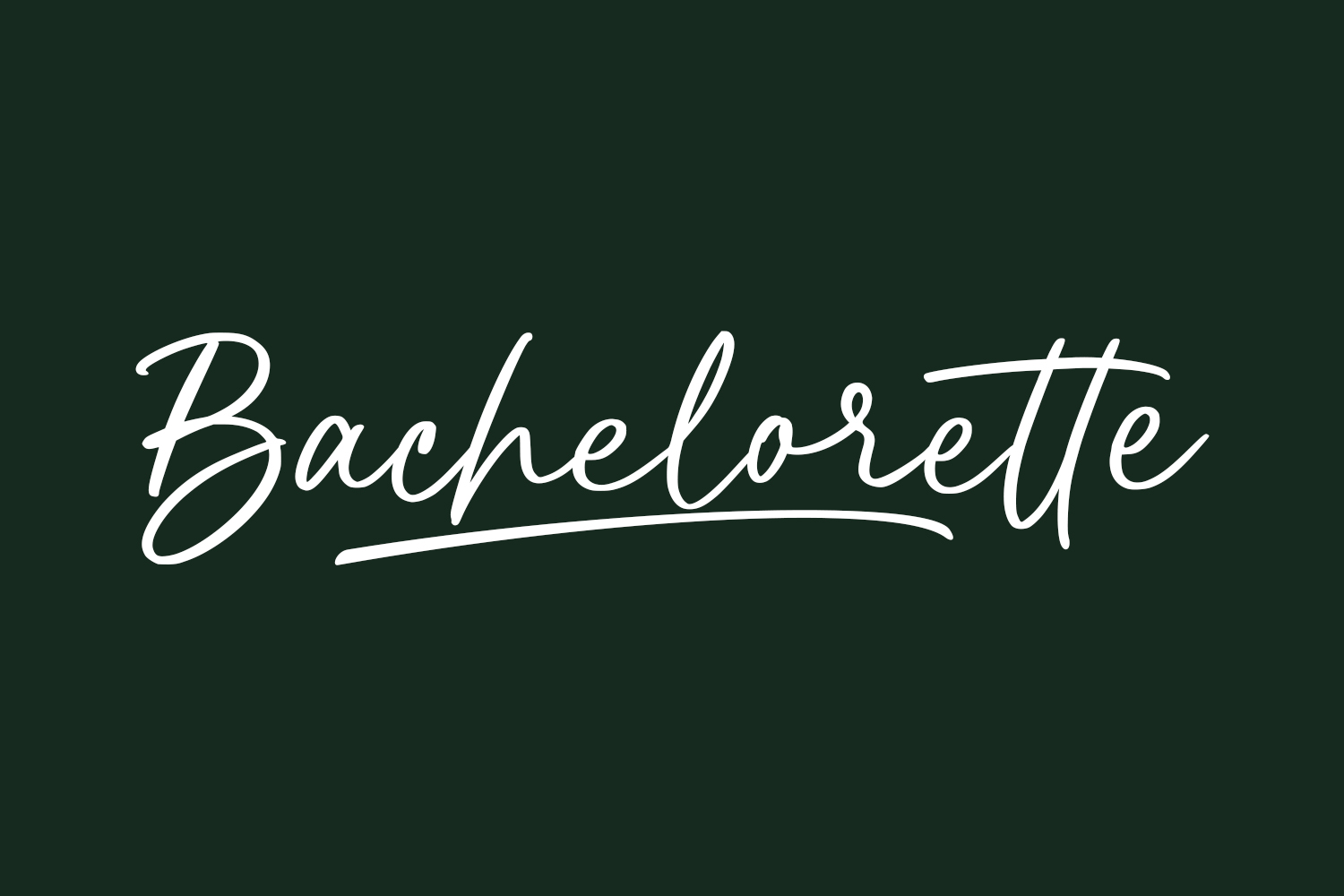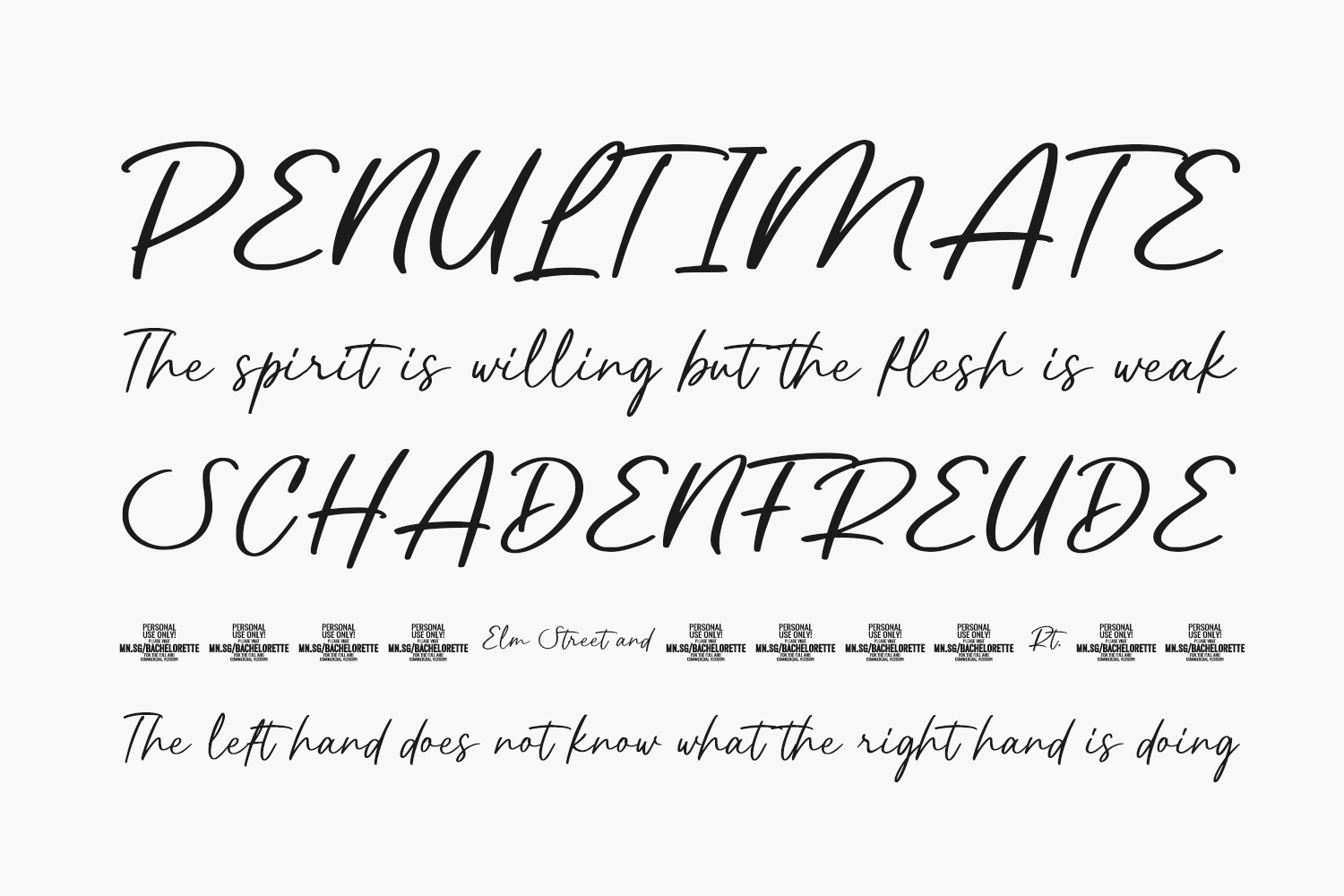
Bachelorette Free Font is a playful and feminine typeface that exudes the spirit of celebration and joy. Its flowing lines and elegant curves are reminiscent of the bride-to-be’s excitement and anticipation on her last night of freedom. Whether used for wedding invitations, party decorations, or social media graphics, Bachelorette Free Font adds a touch of charm and sophistication to any design. With its versatile and easy-to-read lettering, this font is perfect for conveying both fun and formal messaging. So, let your creativity run wild and bring your bachelorette party designs to life with Bachelorette Free Font.